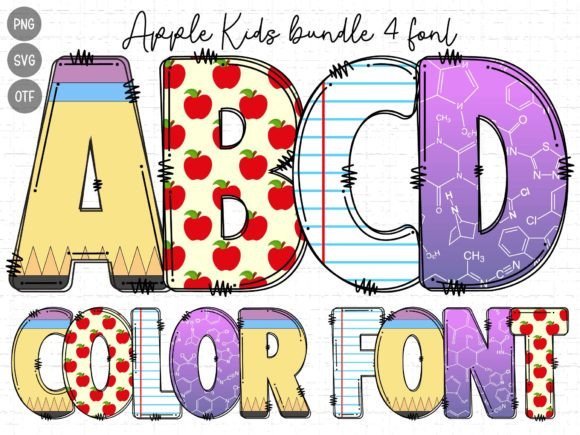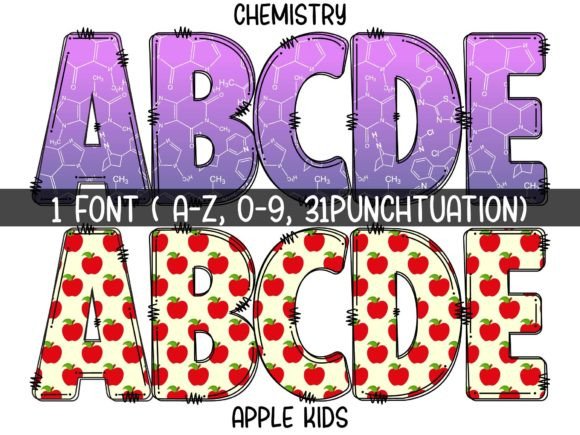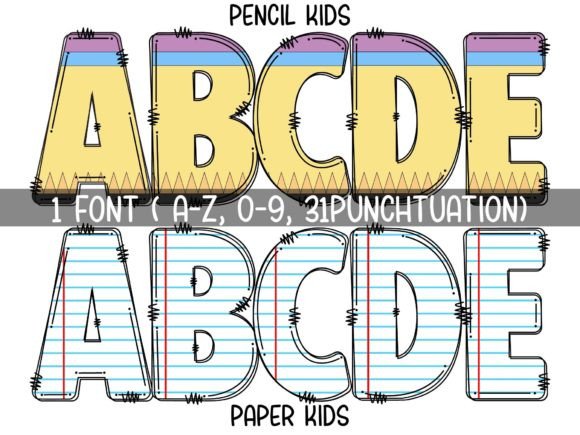
Apple Kids Font
About the Apple Kids Font
Step up your design game with Apple Kids Font, a font that exudes confidence and style. Apple Kids is a cute and fun color font. It embodies playfulness and authenticity and is the perfect choice for any children’s activity or school project. Add this chunky lettered font to your designs and notice how it makes them come alive.
Apple Kids Font is ideally suited for children’s book illustrations, playful branding for toys or children’s apparel, and eye-catching posters for school events. Its chunky letterforms work well in headlines and short, impactful text but are less effective for large blocks of body text or UI elements where readability is paramount.
The font’s inherently playful nature pairs well with clean sans-serif fonts like Open Sans for body copy, creating a balanced contrast between the fun headline and easily readable text. For a more sophisticated look, consider pairing it with a classic serif like Garamond for a touch of elegance that complements the font’s youthful energy.
Apple Kids possesses a bold and friendly personality. Avoid using it in contexts requiring sophistication or seriousness. Its charming, slightly informal style is best suited for projects that emphasize fun, imagination, and a youthful spirit.